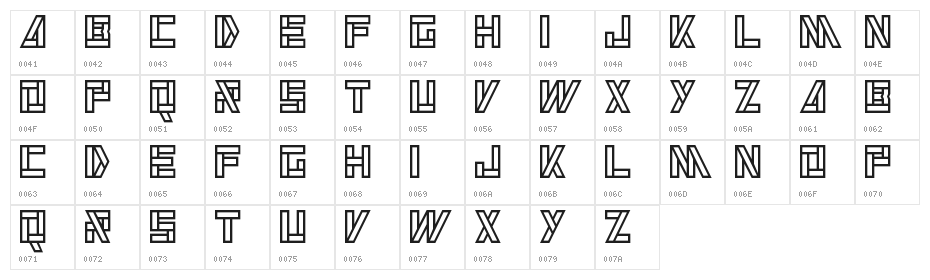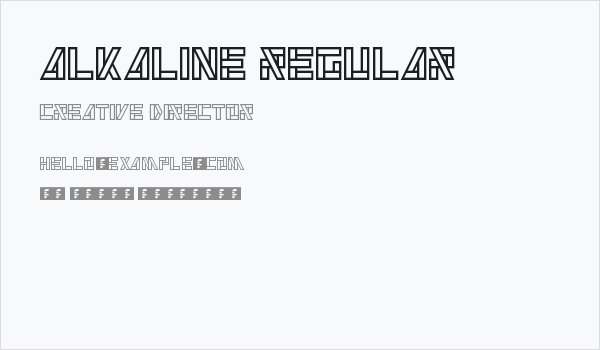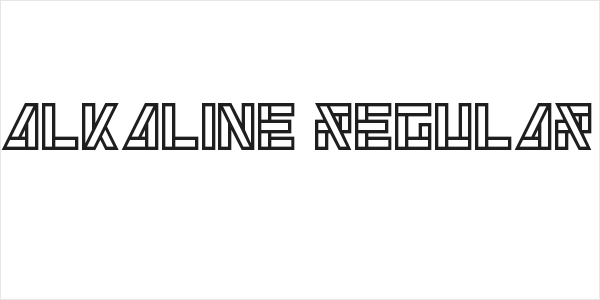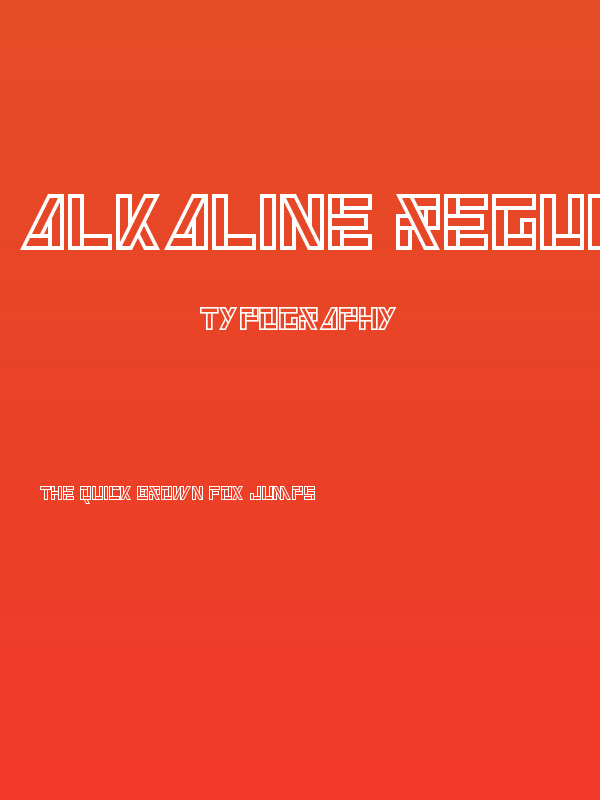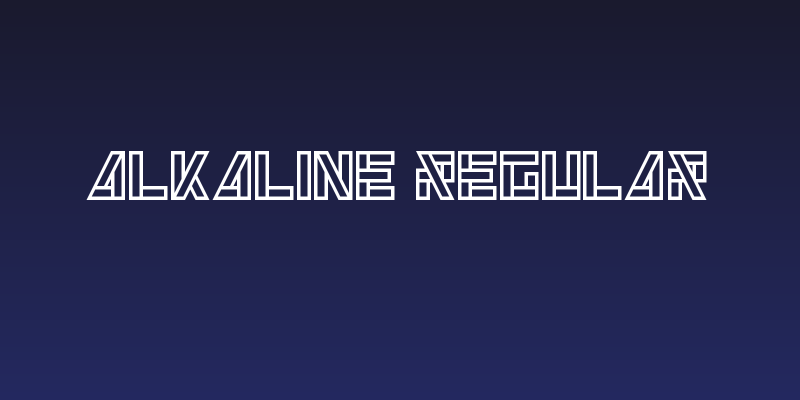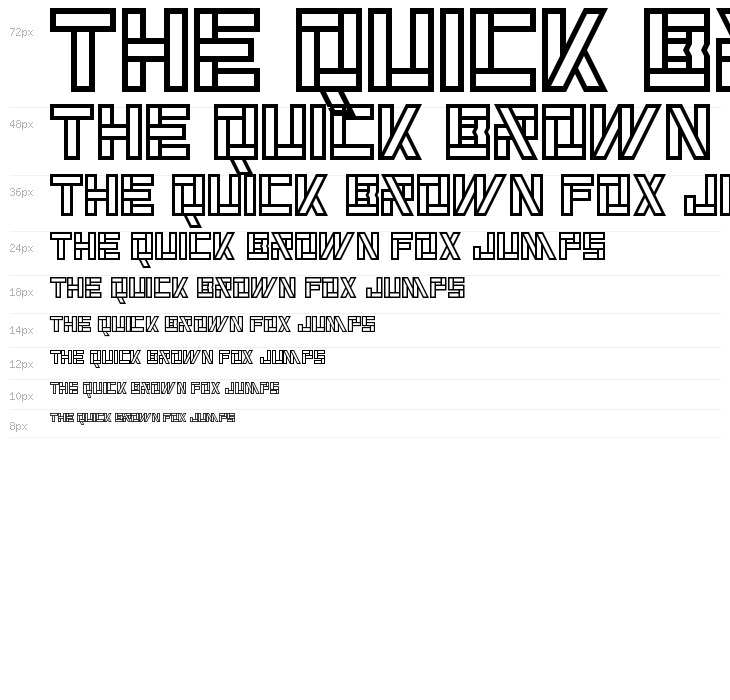
Alkaline Regular Font
Alkaline Regular Description
This font features a bold, geometric design with a futuristic and industrial feel. The characters are constructed with sharp angles and clean lines, creating a sense of precision and modernity. The uppercase letters are particularly striking, with a strong presence that commands attention. The font's structure is reminiscent of architectural elements, making it ideal for projects that require a contemporary and edgy aesthetic. The consistent line thickness throughout the characters adds to its cohesive and uniform appearance.
| Proposed Projects | Ideal for technology branding, sci-fi movie posters, modern architectural magazines, and edgy graphic design projects. |